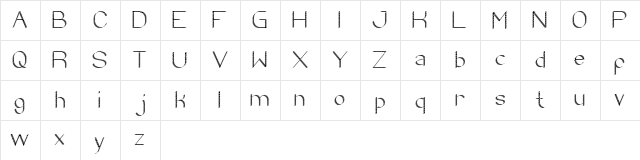
zebra CROSS Regular
Design Context for zebra CROSS Typeface
zebra CROSS is a composed and adaptable typeface that performs quietly and consistently across a wide range of design contexts.